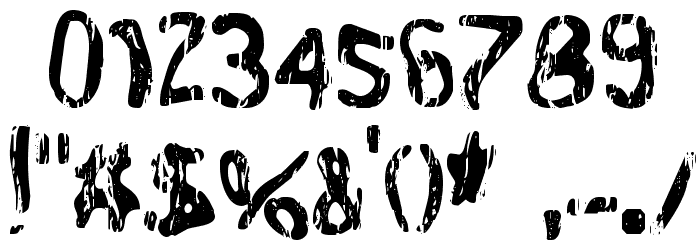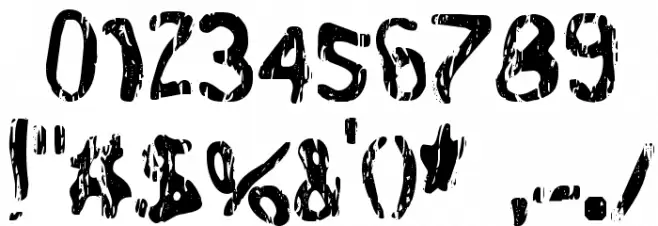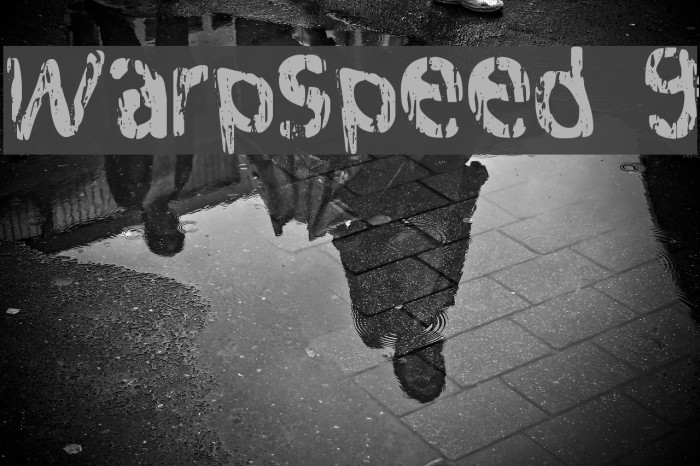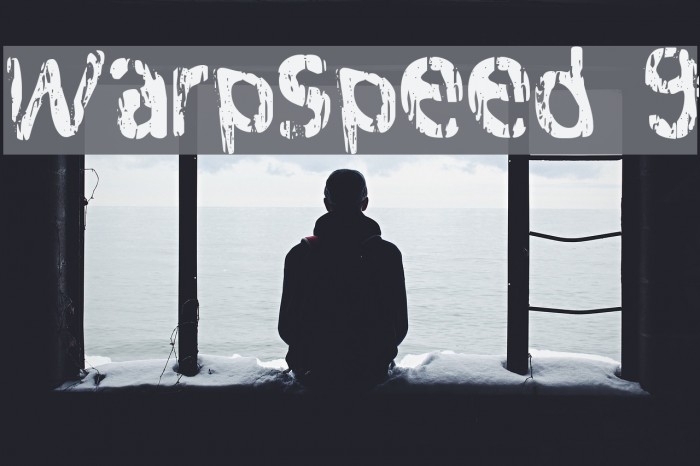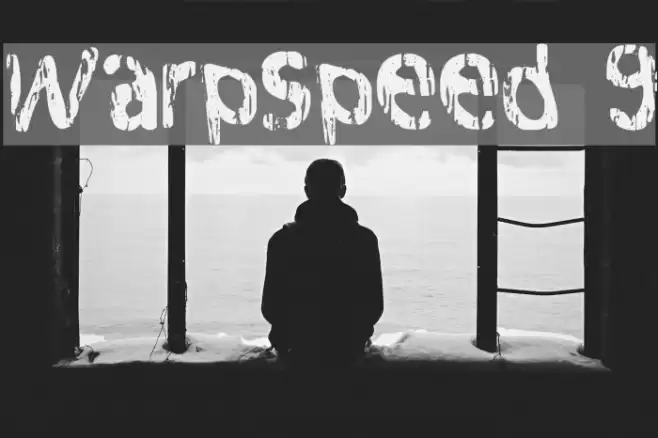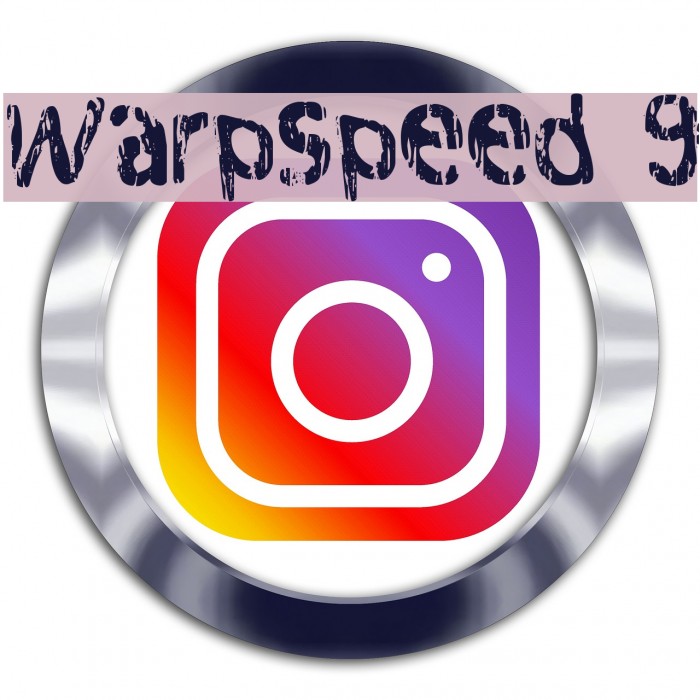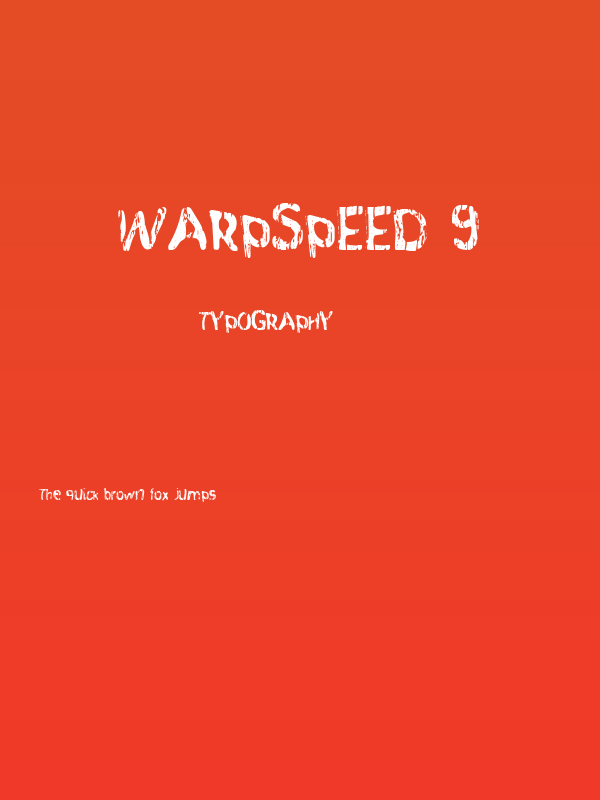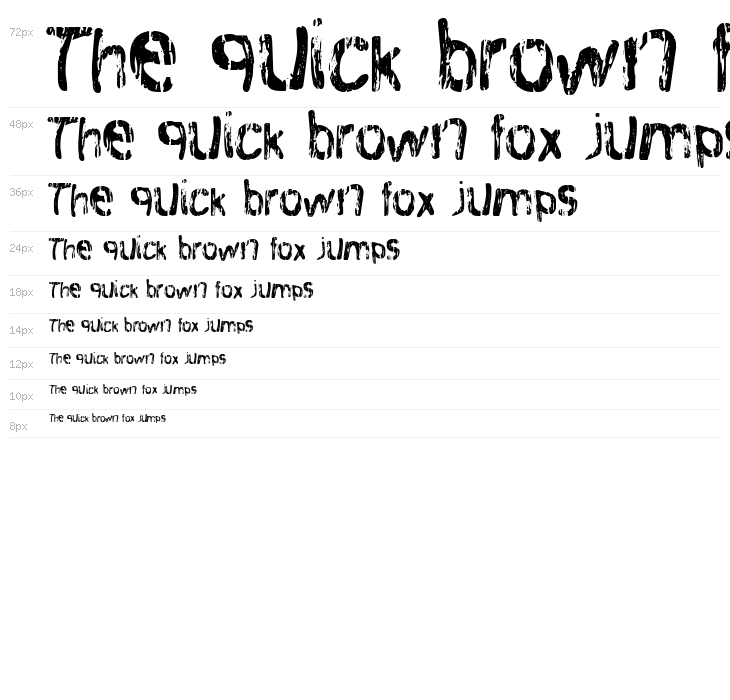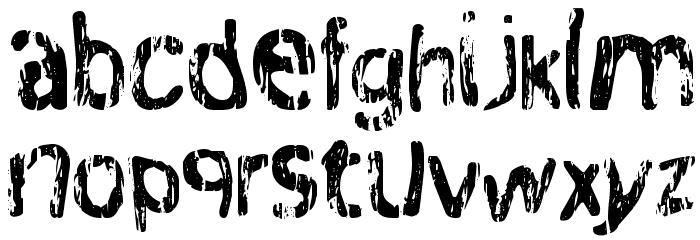
Warpspeed 9 Font
Warpspeed 9 Description
This font features a distressed and grungy style, with a rough texture that gives it a worn and weathered appearance. The characters are bold and have an uneven, hand-painted look, which adds to its rugged charm. The uppercase and lowercase letters maintain a consistent style, with jagged edges and irregular shapes that create a dynamic and energetic feel. The numbers and special characters follow the same aesthetic, making the font versatile for various design needs. Its unique style makes it stand out, perfect for projects that require a bold and edgy look.
| Overall Style | Grunge, Urban, Edgy |
| Proposed Projects | Ideal for music album covers, posters, urban-themed designs, and branding that requires a bold statement. |